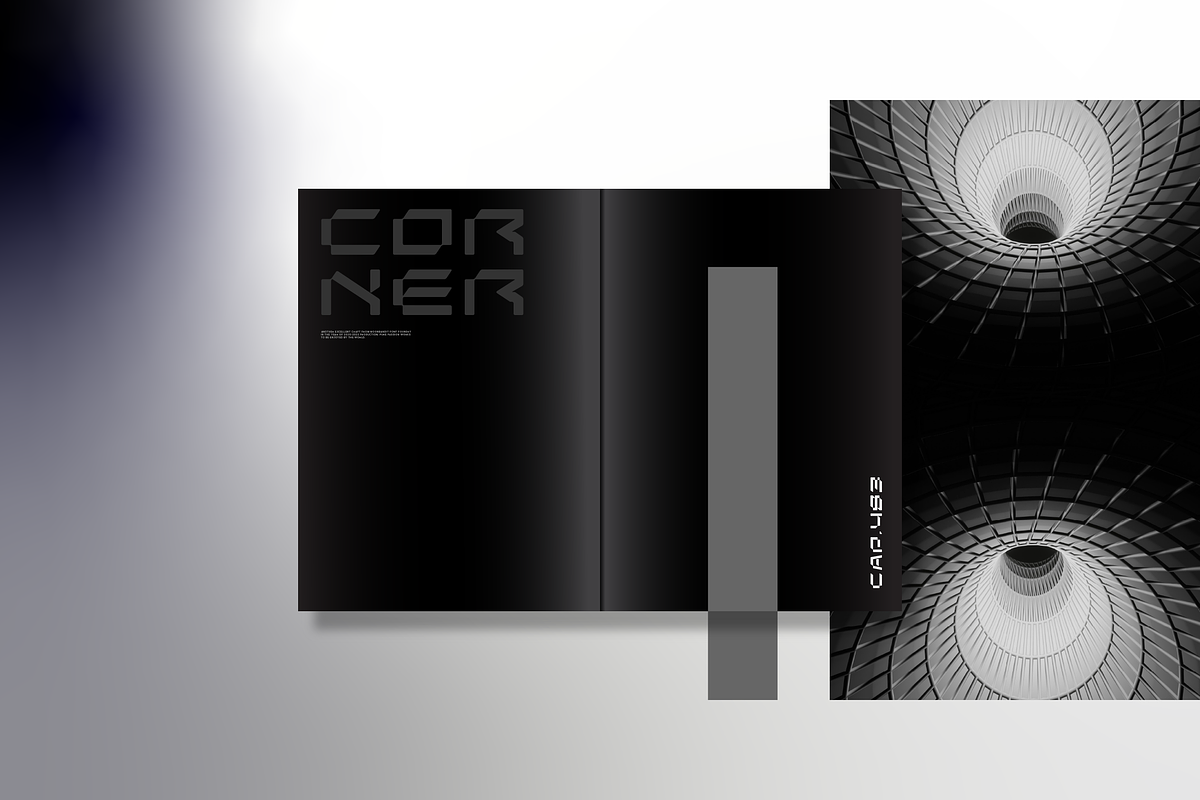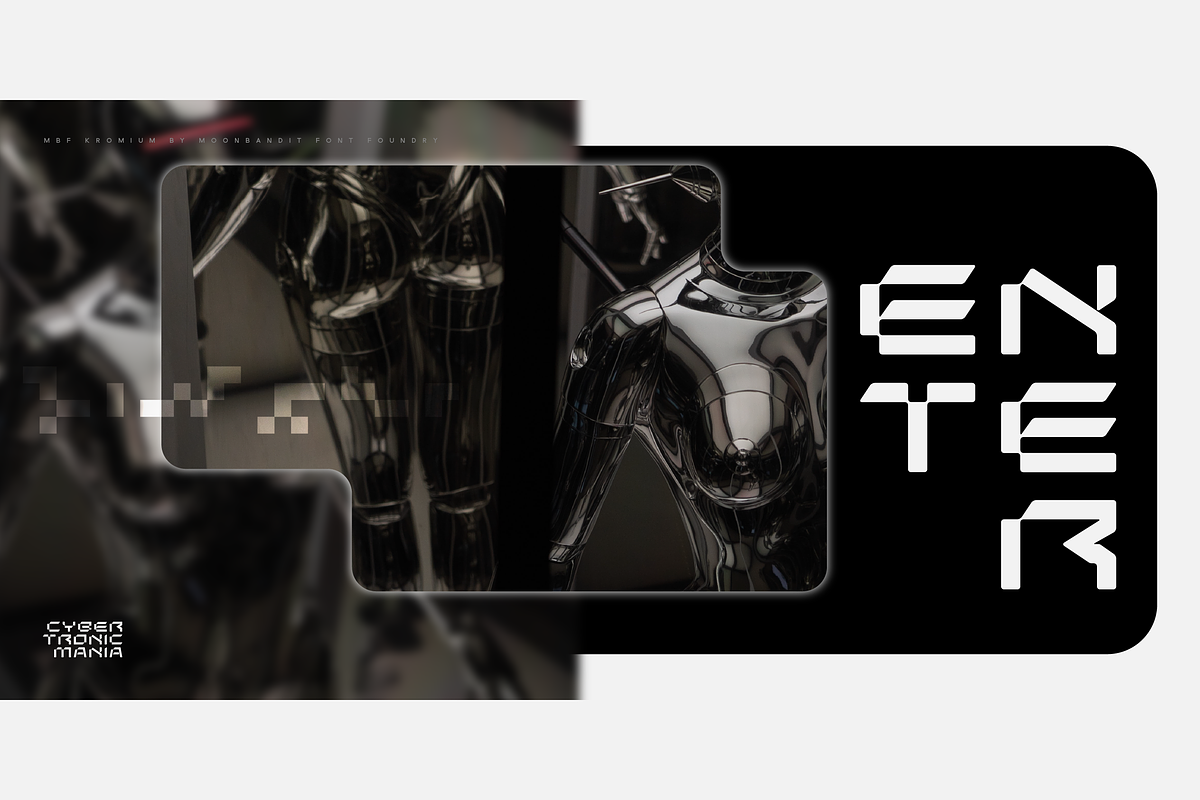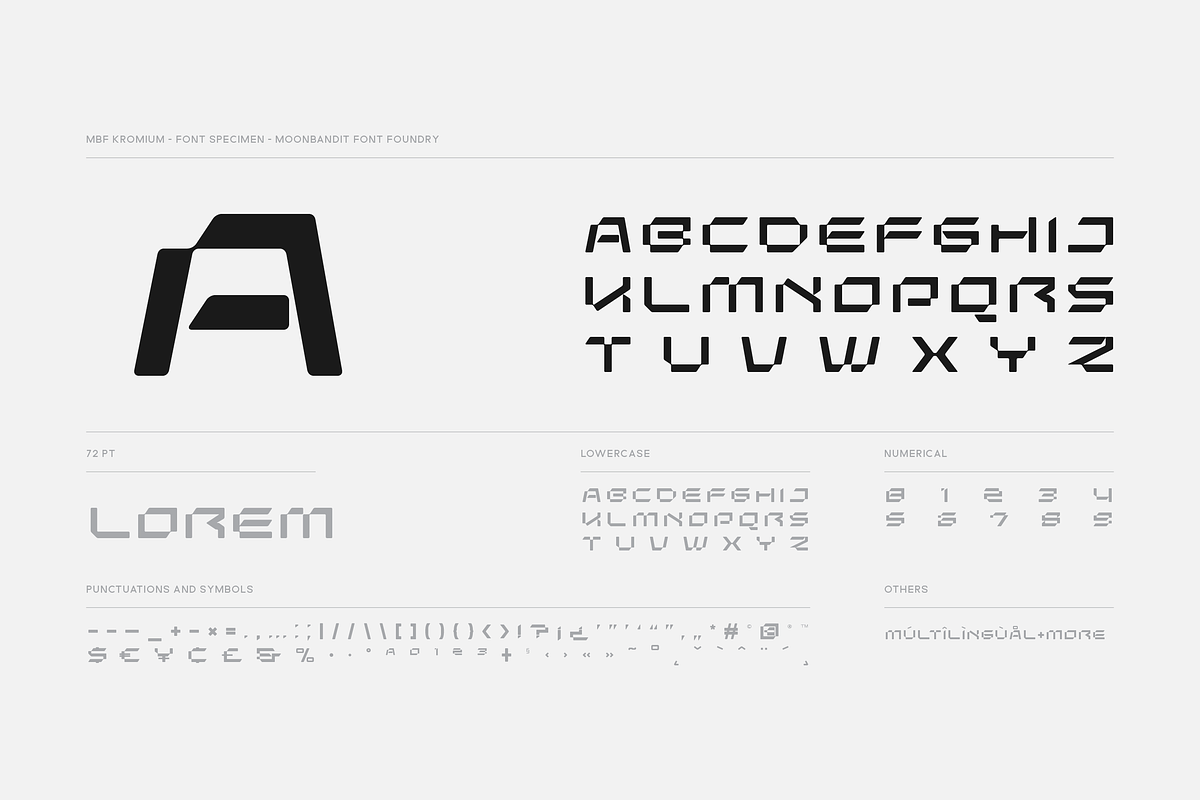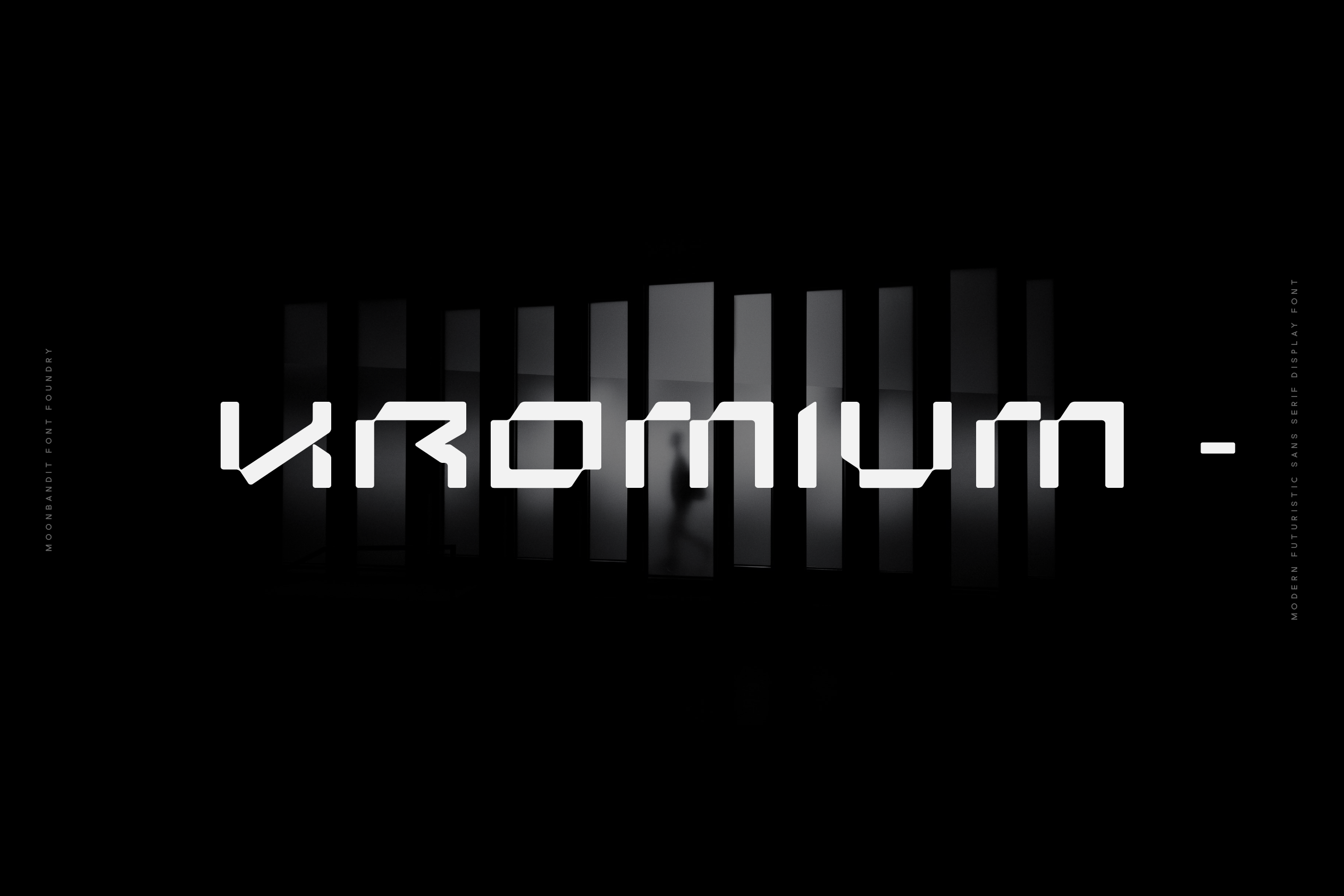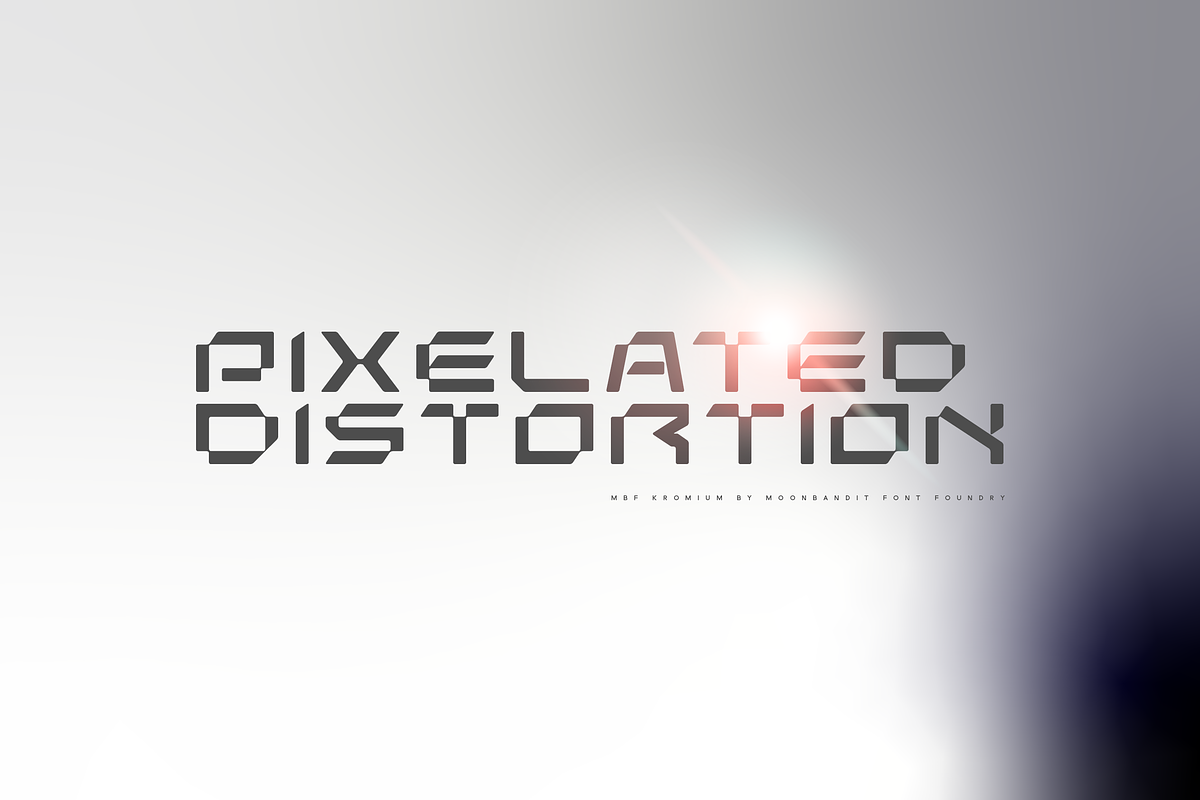
MBF Kromium - modern scifi font
Kromium is a wide modern futuristic scifi sans serif display font. This typeface is heavy on the cyberpunk mecha theme with a minimalist approach. Best use as logo, poster, display, headline, t-shirt design and many more.